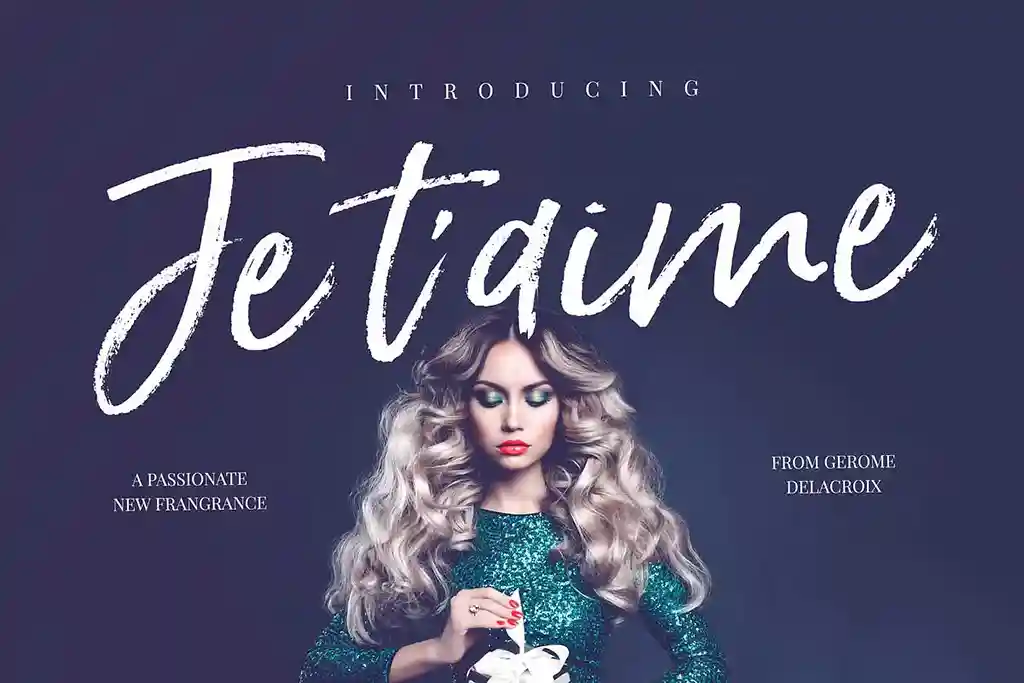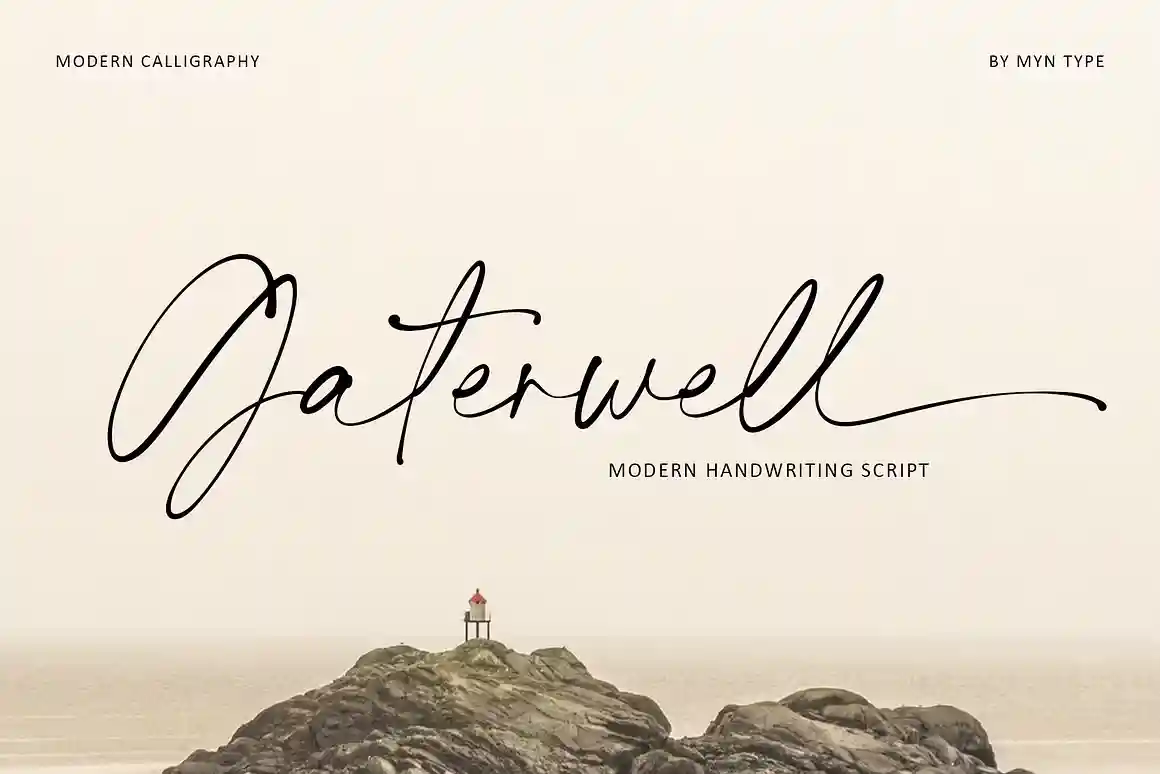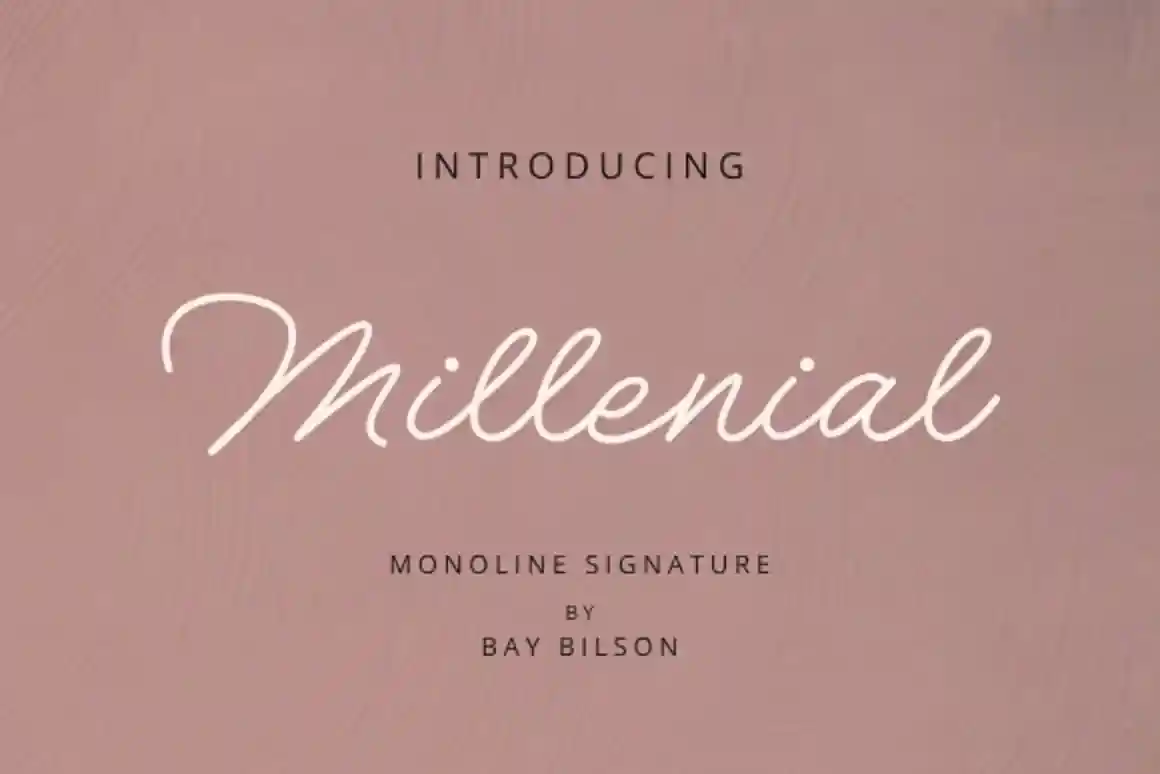
Boost Sales with a Handwritten Fonts: Your Guide to Human-Centric Graphic Design
Boost Sales With Hand Written Fonts
Okay, let’s ditch the corporate jargon for a second. We all know those sleek, perfect fonts look… well, perfect. But sometimes, you want your graphic design to feel like it has a soul, right? Like it was touched by a real person, not just spat out by a machine. That’s where handwritten fonts come in. They’re like a warm hug in a digital world, and when used right, they can seriously connect with your audience and even nudge them towards hitting that “buy” button.
Think about it, doesn’t it feel a little more personal when you see something that looks hand-lettered? More authentic? That’s the magic of handwritten looking font. But just like adding too much spice to a dish, overdoing it can be a disaster. So, let’s chat about when using these wonderfully imperfect fonts makes sense (and can even boost your sales!).
Forget being a faceless corporation. A cool handwritten font can be your secret handshake if your brand is all about being approachable, friendly, and down-to-earth. It tells people, “Hey, we’re real folks here!” Imagine:
1. Someone selling handmade crafts online using handwritten fonts Canva for their product descriptions. It just screams “made with love,” right? (increasing perceived value)
2. That adorable local bakery using a sweet handwritten font on their “freshly baked today” sign. Makes you want a cookie now, doesn’t it? (driving impulse buys)
3. A life coach using a warm, flowing realistic handwriting font on their website. It feels like they’re personally reaching out. (attracting potential clients)
Remember those cool vintage posters or that awesome retro band tee? Often, it was the lettering that nailed the vibe. Handwritten fonts with a bit of history can instantly transport your audience and attract folks who dig that nostalgic feel. Think about:
1. Promoting a throwback Thursday event with a bold, slightly messy handwritten looking font. It screams “fun and casual,” doesn’t it? (encouraging event attendance).
2. An online vintage store using an elegant, script-like handwritten font Adobe for their product names. It just adds to the charm and makes those antique finds even more appealing (targeting vintage enthusiasts).
In a world of mass-produced everything, highlighting the human element can make your products stand out and even justify a slightly higher price tag. Handwritten fonts whisper “We care about the details.” Picture this:
1. A small business selling artisanal coffee beans using a carefully chosen realistic handwriting font on their packaging. It feels like someone personally roasted those beans, right? (building brand trust and justifying premium pricing).
2. A natural skincare brand using a gentle, flowing handwritten font to list its ingredients. It reinforces the idea of natural, handcrafted goodness (appealing to conscious consumers).
Not everything needs to be serious! If your brand or project has a playful, lighthearted vibe, a quirky cool handwritten font can be just the ticket. Think about:
1. A children’s party planner using a bouncy handwritten font Canva on their website. It screams “fun and kid-friendly!” (attracting parents looking for party services).
2. A casual blog using a relaxed handwritten-looking font for its headings. It makes the content feel more approachable and friendly (increasing reader engagement).
Just because you can use a handwritten font doesn’t mean you should. Here are a few things to keep in mind:
1. Can people read it? That super swirly, barely-there script might look artistic, but if your audience can’t decipher it, it’s doing more harm than good (prioritizing readability for conversions).
2. Is it all about the handwriting? Too many handwritten fonts in one design can feel chaotic. Use them strategically for headings, logos, or short bursts of text (guiding the user’s eye).
3. Does it fit the mood? A super playful font probably isn’t the best choice for a serious financial report (maintaining brand consistency).
4. Can you actually use it? If you’re using Handwritten Fonts Canva or Handwritten Fonts Adobe, make sure you’re using them within their licensing terms, especially for commercial projects (avoiding legal issues).
When used thoughtfully, handwritten fonts can be a fantastic way to add personality, build trust, and connect with your audience on a more human level. They can make your graphic design feel more authentic, approachable, and memorable – all things that can ultimately lead to more engagement and, yes, even more sales. So, go ahead, and explore those cool handwritten fonts and realistic handwriting fonts. Just remember to choose wisely and let that human touch work its magic!